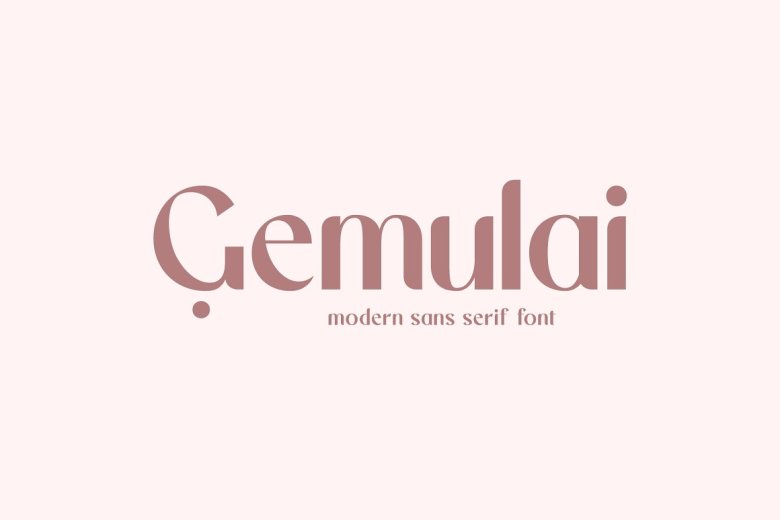
Gemulai Font
Gemulai – modern and simple sans serif font to make your designs. This font is perfect for branding, logos, covers, t and more. Gemulai Features: Uppercase, Lowercase, Numeral, Punctuation, Multilingual, Ligatures & Alternates.
Gemulai Sans Serif Font